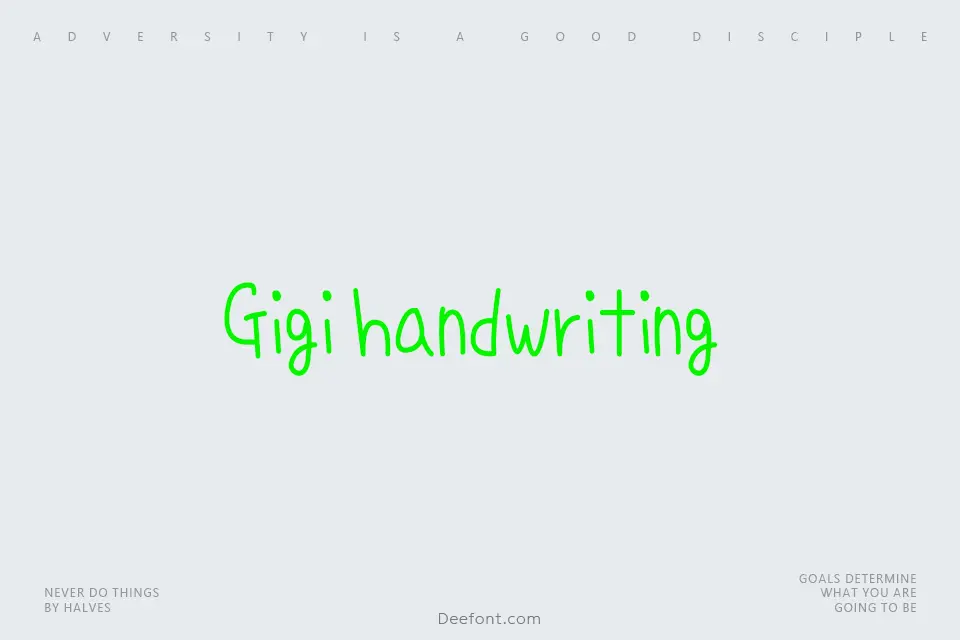
Gigi handwriting Font
Gigi handwriting is a charming and informal script typeface characterized by its smooth, flowing strokes and naturally curved letterforms. Designed with a casual, artistic aesthetic, this font captures the warmth of authentic handwriting with rounded, playful character shapes. Perfect for invitations, greeting cards, poster designs, social media graphics, and decorative projects, Gigi handwriting adds personal warmth and creative flair to any design requiring an organic, approachable touch.